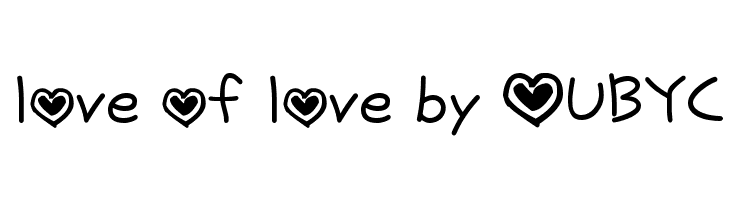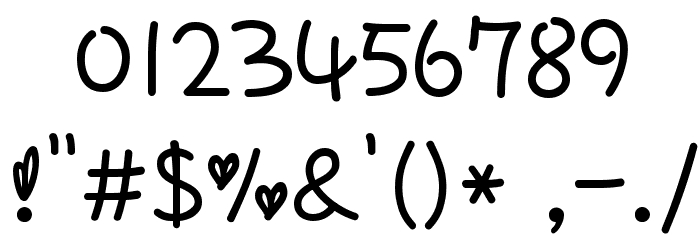
love of love by OUBYC Font
This playful and whimsical font features a handwritten style with a unique twist. The letters are rounded and slightly irregular, giving them a casual and friendly appearance. Notably, the font incorporates heart motifs within certain characters, such as the 'O' and 'o', adding a romantic and charming touch. The overall design is consistent with a handwritten aesthetic, making it suitable for projects that require a personal and informal feel. The numbers and special characters maintain the same playful style, ensuring a cohesive look across all text elements.
A playful handwritten font with heart motifs and a casual, friendly style.
• Proposed Projects: Ideal for wedding invitations, greeting cards, love-themed projects, and playful branding.
• Category: Handwritten
• Overall Style: Decorative
• Use Case: Logos, Invitations, Greeting Cards